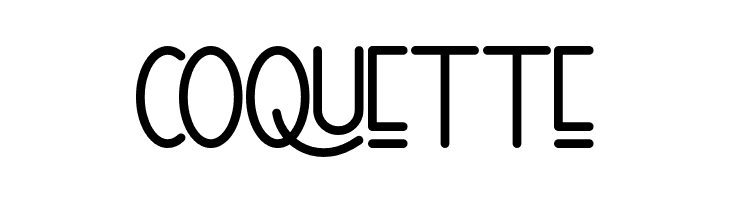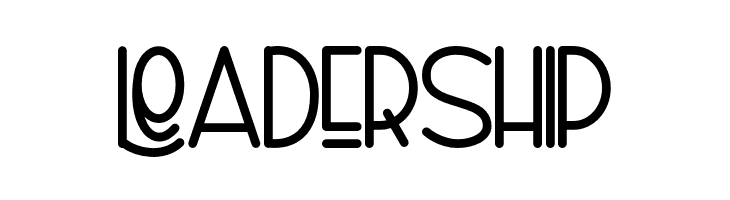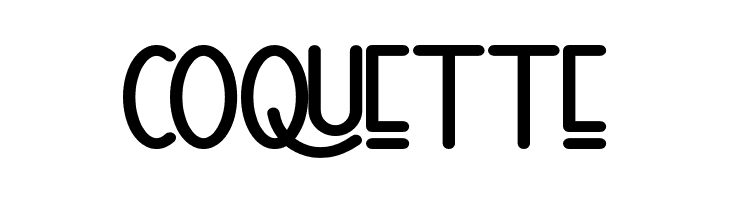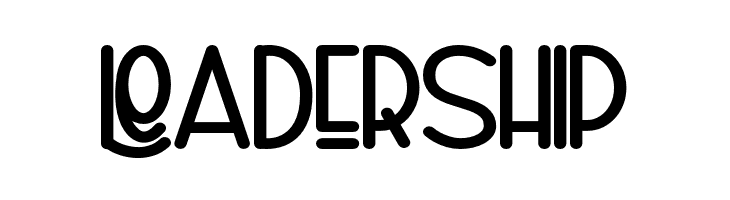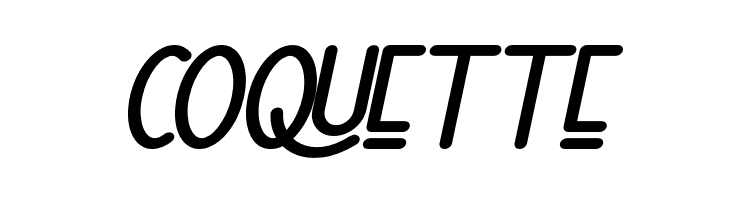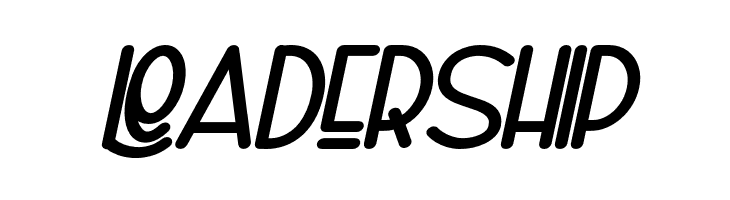
• Naughty Squirrel Demo
A playful, bold, and chunky font with a whimsical style.
• Naughty Squirrel Shadowed Demo
A bold, shadowed font with a playful, comic book style.
• Naughty Squirrel Shadowed Demo
A bold, shadowed font with a playful, three-dimensional style.
• Naughty Squirrel Striped Demo
A bold, decorative font with diagonal stripes and shadowed outlines.
• NaughtyPipe
A bold, decorative font with a playful, pipe-like design.
• NAUJOKS LOVE
• Naula
A bold, decorative font with curvy serifs and a vintage flair.
• Naula
A bold, decorative serif font with modern and vintage influences.
• Naura-Bold_DEMO
A bold, playful font with rounded edges and a modern look.
• Naura-BoldSlant_DEMO
A bold, slanted font with a dynamic and energetic style.
• Naura-Regular_DEMO
A modern, rounded font with a sleek and consistent design.
• Naura-SemiBold_DEMO
A playful, rounded semi-bold font with a modern and friendly appearance.
• Naura-SemiBoldSlant_DEMO
A slanted, semi-bold font with a dynamic and modern style.
• Naura-Slant_DEMO
A modern, slanted font with smooth curves and a dynamic style.
• Nautica 3D Italic
A bold, 3D italic font with a decorative and dynamic style.
• Nautica 3D Regular
A bold, 3D font with a vintage, shadowed style.
• Nautica Regular
A decorative font with circular motifs and geometric precision.
• Nautical
A decorative icon set with nautical and maritime motifs.
• Nautical-Regular
A playful, nautical-themed font with rope-like elements and outlined characters.
• NautilusOne
A decorative font inspired by nautilus shells, featuring intricate spiral and circular designs.
• NautilusTwo
An artistic font with intricate spiral and geometric designs inspired by nautilus shells.